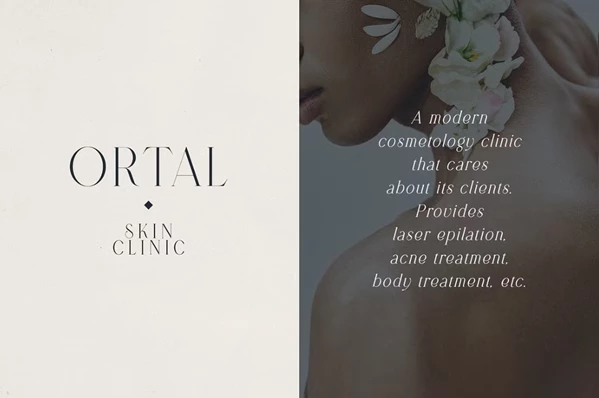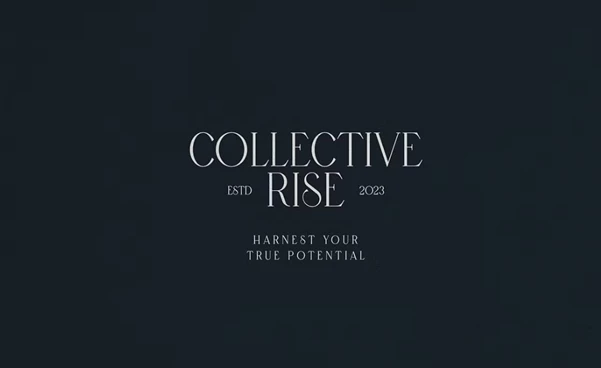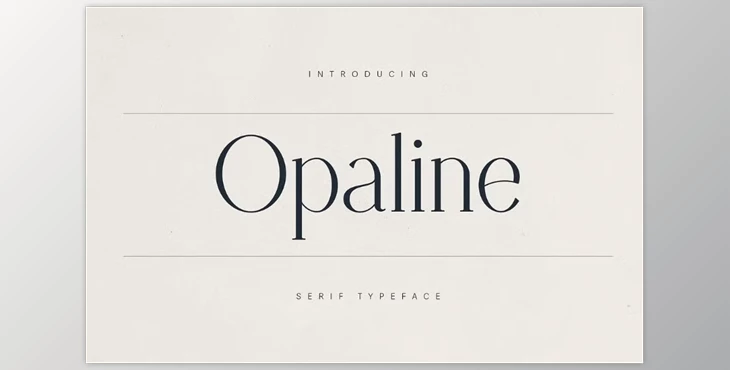
Opaline – Elegant Modern Serif Font:
Opaline is a stylish serif family that works perfectly for luxury branding and various creative ventures, including editorial, fashion, beauty, and lifestyle. This high-contrast minimalist serif with the most delicate curves embodies a modern take on classic elegance, providing a refined yet subtle approach to any project. Opaline is the optimal choice for logos, headlines, social media graphics, packaging, and web development, combining contemporary needs with a timeless finish.
Some great features of Opaline – Elegant Modern Serif Font:
- High contrast modern serif
- 5 weights: Hairline, Light, Regular, Bold, Black
- True italics included
- Over 85 languages supported
- Perfect for branding, fashion, editorial, and web projects
Opaline is great for luxury brands and fashion designers looking for a clean, yet expressive, serif typeface. It features support for over 85 languages, including Afrikaans, Albanian, Danish, French, German, Italian, Spanish, etc.